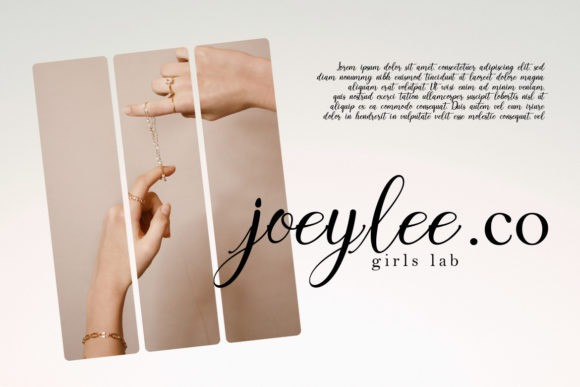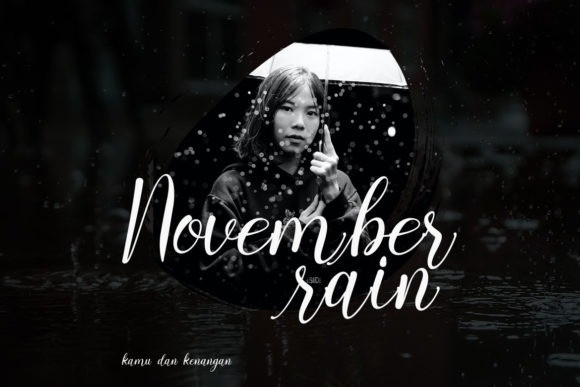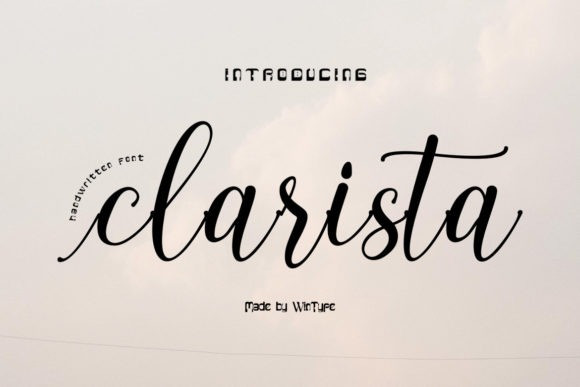
Clarista Font
Clarista Script Font is an enchanting handwritten font. This versatile script font has a wide spectrum of applications ranging from greeting cards to headlines. Clarista is PUA encoded which means you can access all of the glyphs and swashes with ease!